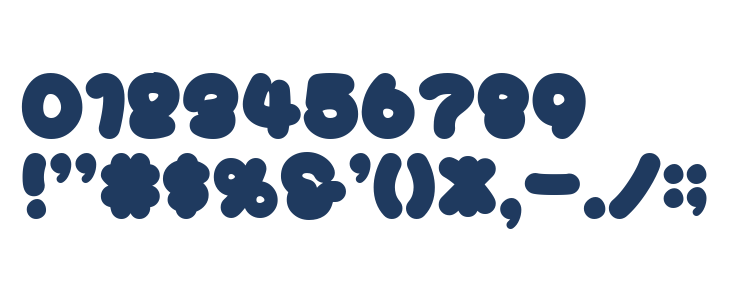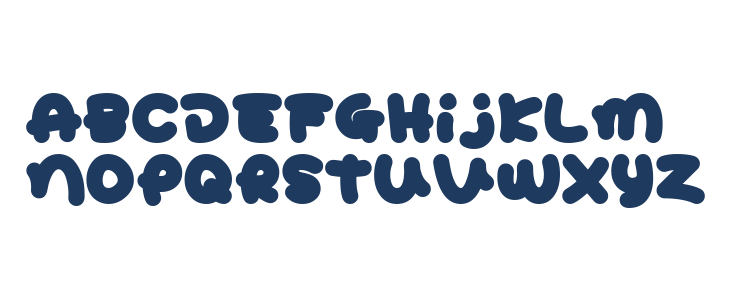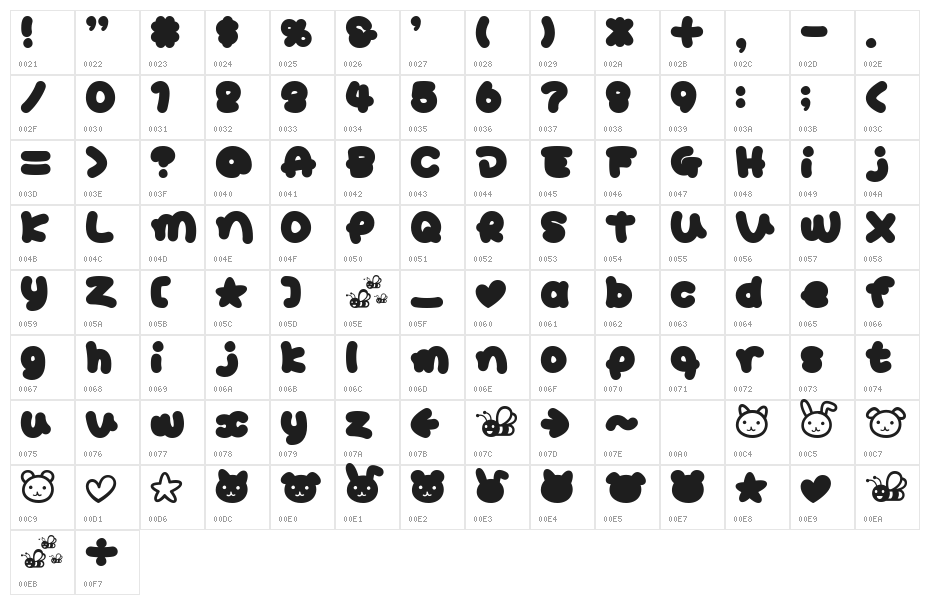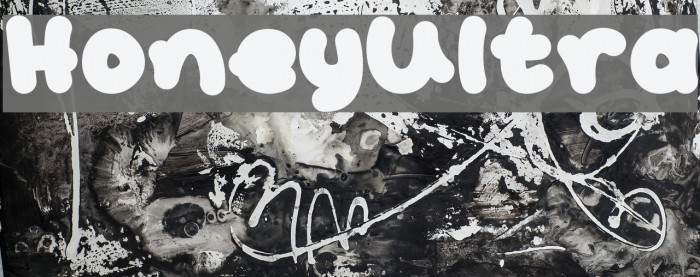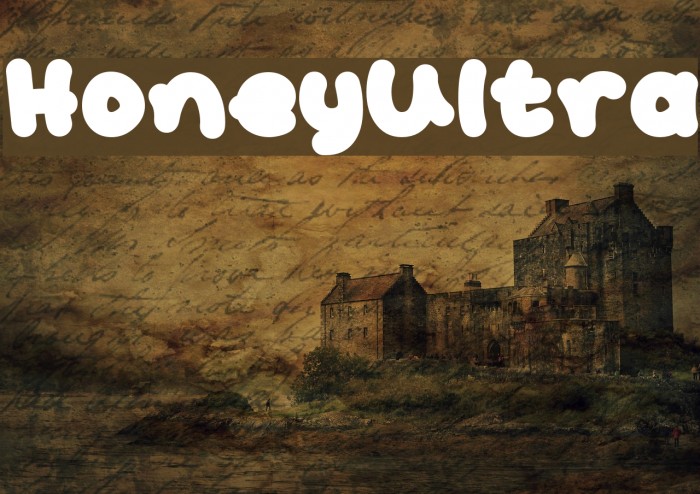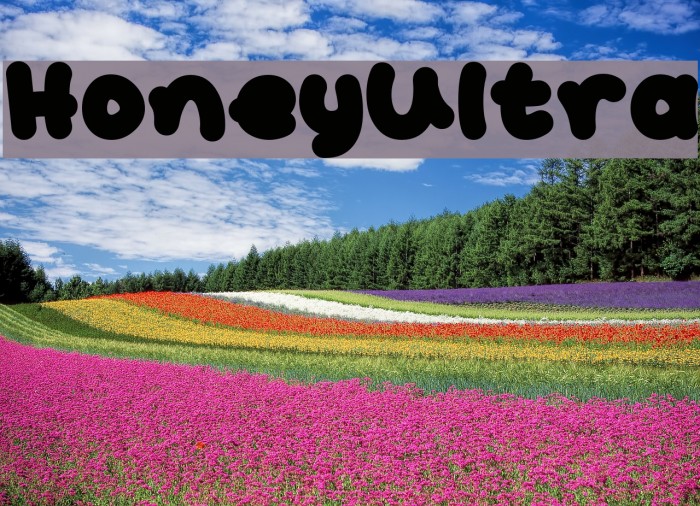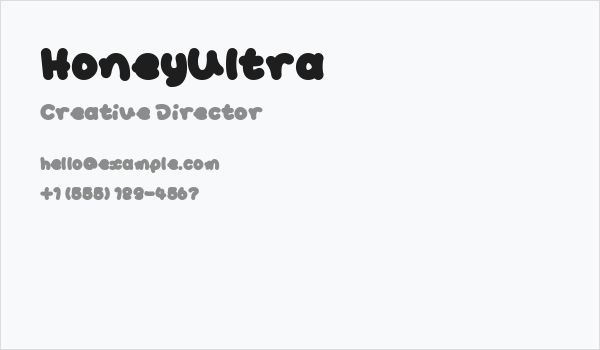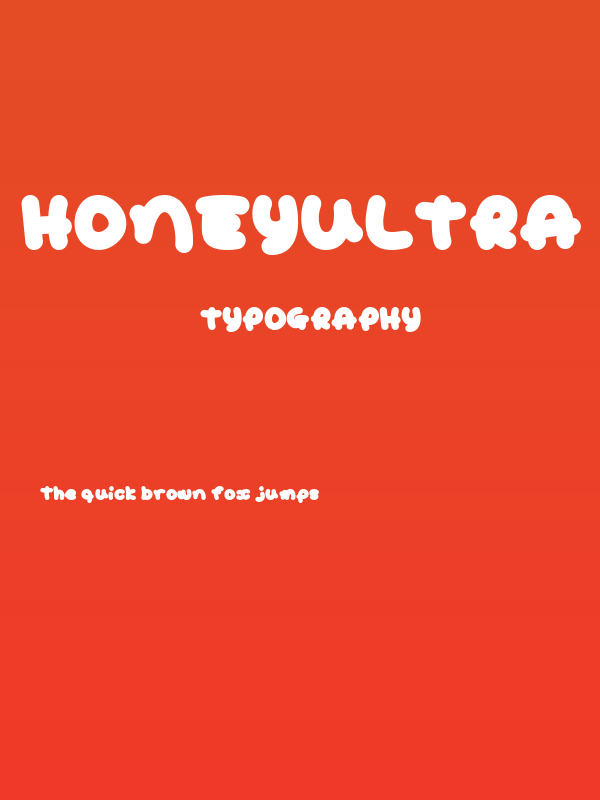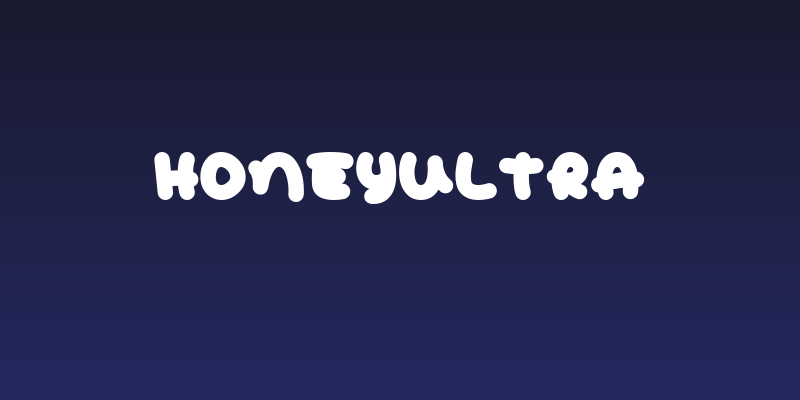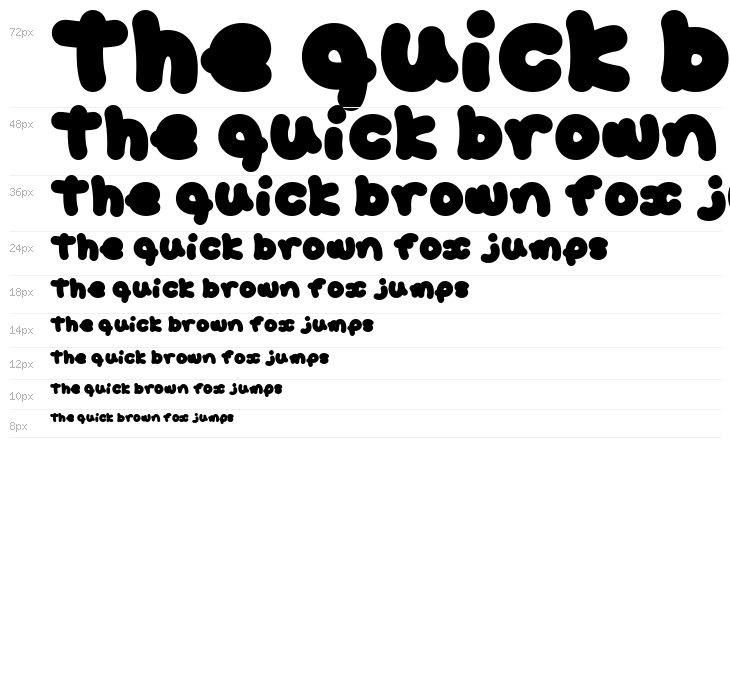
HoneyUltra Font
HoneyUltra Description
This playful and bold font features thick, rounded characters that exude a sense of fun and creativity. The letters are heavily weighted, with a bubbly appearance that makes them stand out. Each character is distinct, with a consistent thickness throughout, giving the font a cohesive look. The rounded edges and lack of sharp angles contribute to its friendly and approachable style. This font is perfect for projects that require a touch of whimsy and boldness, making it ideal for children's materials, playful branding, or eye-catching headlines.
| Overall Style | Playful, Fun, Bold |
| Proposed Projects | Ideal for children's books, playful branding, party invitations, and eye-catching headlines. |